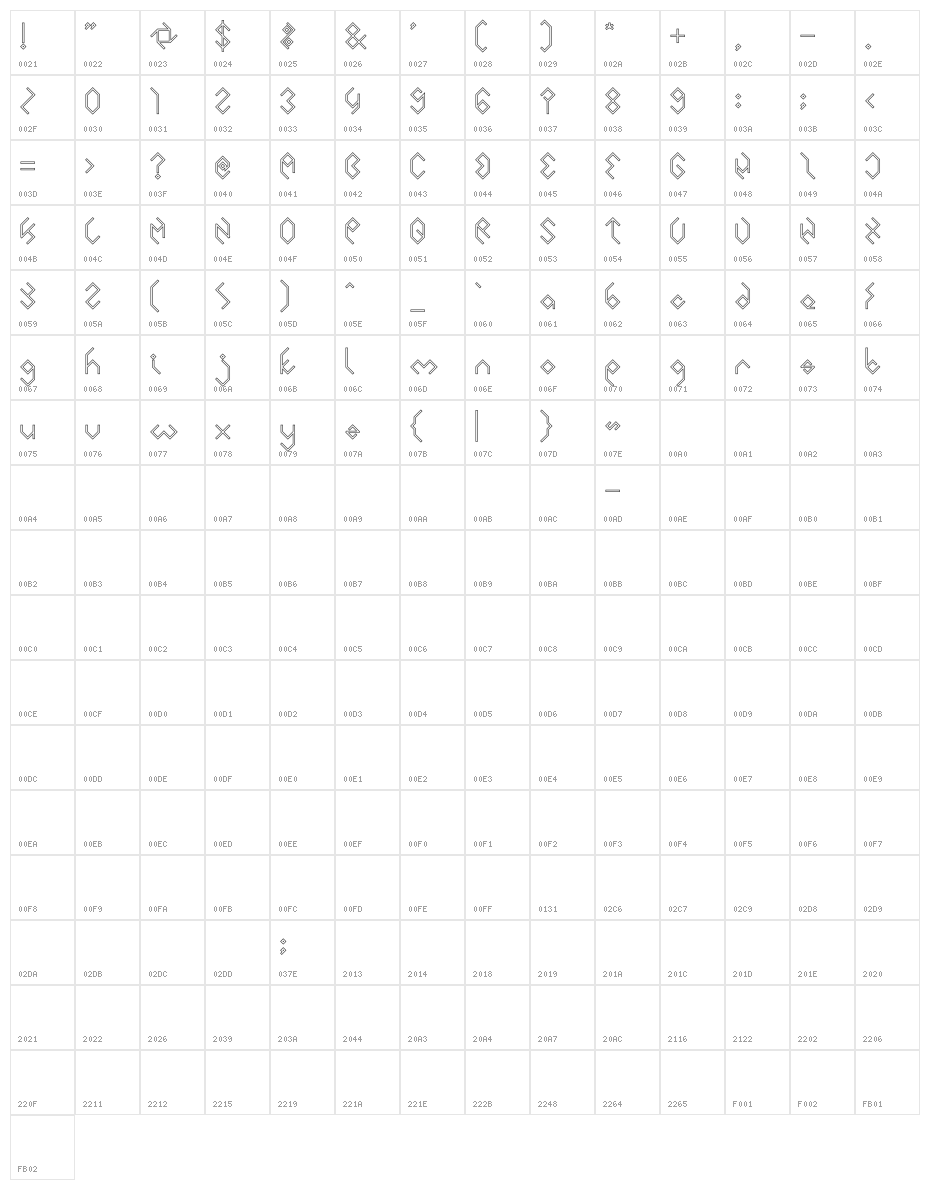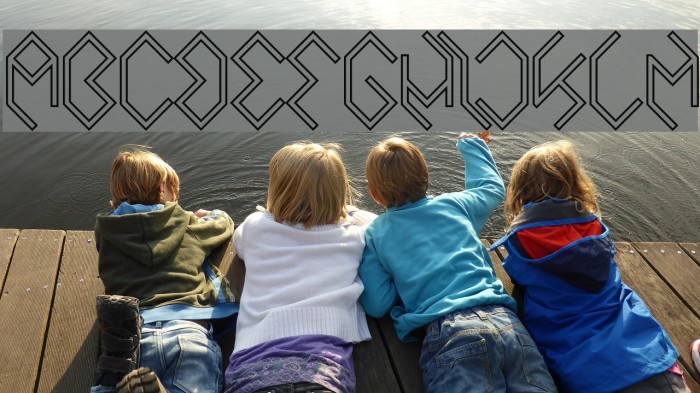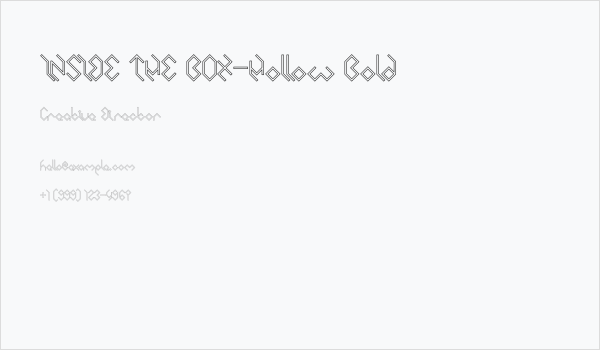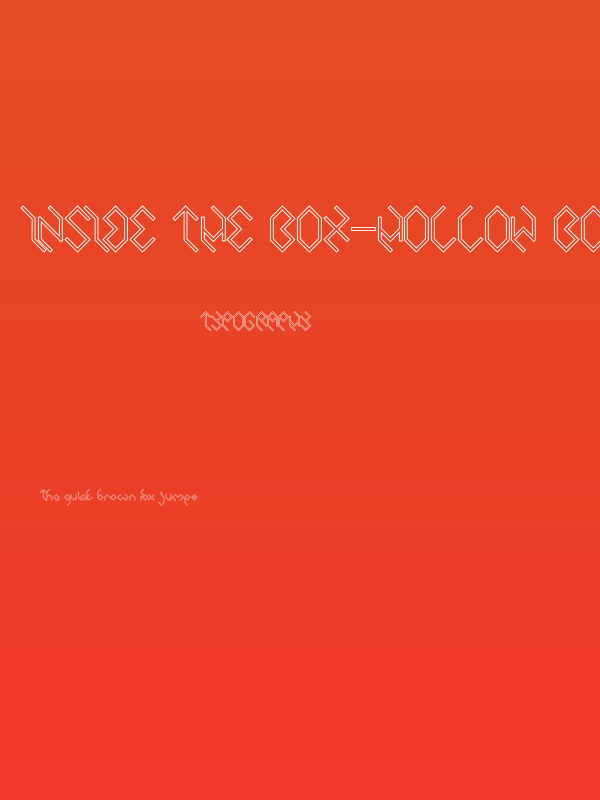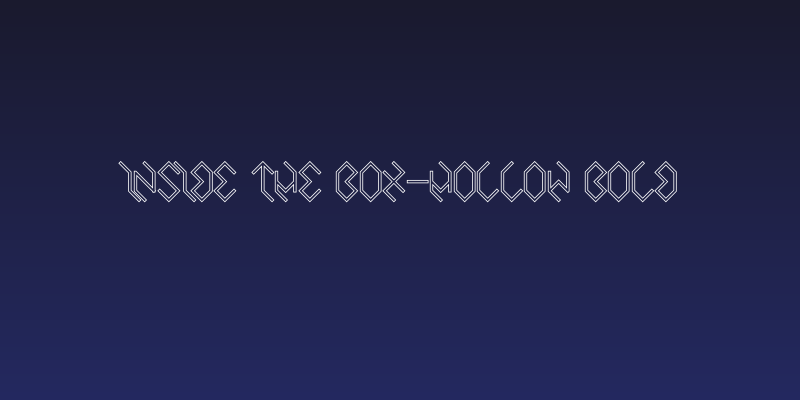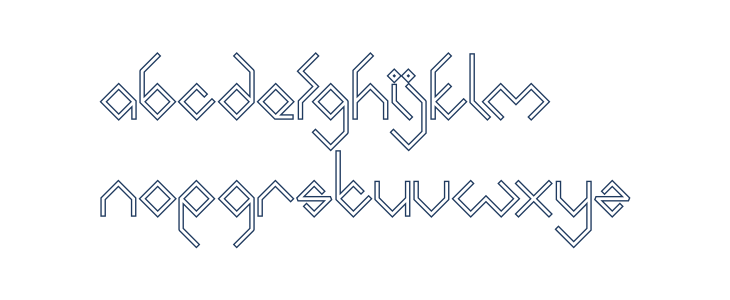
INSIDE THE BOX-Hollow Bold Font
INSIDE THE BOX-Hollow Bold Description
This font features a unique hollow design with bold, geometric lines that create a striking visual impact. Each character is constructed with angular, interconnected strokes, giving it a futuristic and architectural appearance. The uppercase and lowercase letters maintain a consistent style, with sharp edges and a uniform thickness throughout. The numbers and special characters follow the same design principles, ensuring a cohesive look across all glyphs. This font's hollow nature allows for creative use of background colors and textures to shine through, making it ideal for eye-catching designs.
| Proposed Projects | Ideal for futuristic branding, tech-related projects, posters, and modern art designs. |